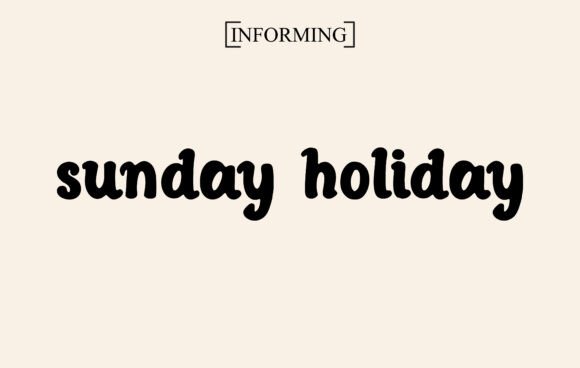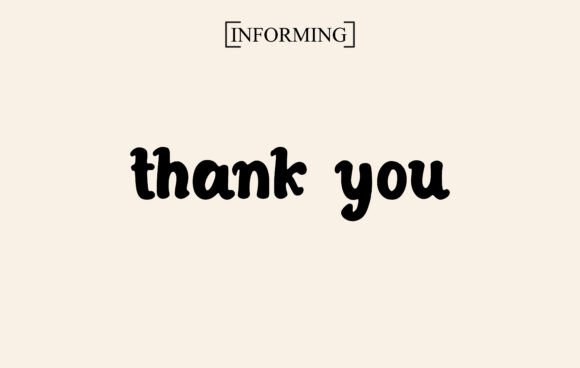
Discover the Elegance of Grace Notes Font: Elevate Your Designs with Sophistication
In the world of typography, a font can make or break a design. It’s the foundation upon which creativity is built, and when it comes to making a statement, the right font can elevate your project from ordinary to extraordinary. This is where the Grace Notes Font comes into play—a versatile and elegant typeface designed to bring your creative ideas to life. Whether you’re a seasoned designer or a crafty DIY enthusiast, Grace Notes Font is poised to become your go-to choice for a wide array of projects.
What Makes Grace Notes Font Stand Out?
At its core, the Grace Notes Font is crafted to be more than just a typeface—it’s an experience. Its design focuses on legibility and aesthetic appeal, making it an ideal choice for both body text and headlines. The font’s creators have poured their expertise into ensuring that Grace Notes not only catches the eye but also conveys your message with clarity and style.
One of the key features of the Grace Notes Font is its incredible versatility. This font isn’t limited to a specific use case; rather, it’s designed to adapt and shine across various mediums and projects. Here are some of the areas where Grace Notes Font truly excels:
- Magazine Headlines: Add a touch of elegance and sophistication to your magazine’s cover pages or feature articles.
- T-Shirts and Merchandise: Create eye-catching and memorable apparel and merchandise that stands out.
- Social Media Graphics: Elevate your social media presence with stylish and engaging graphics.
- Branding and Logos: Use Grace Notes Font to create a lasting impression with a sophisticated and professional brand identity.
- Wedding Invitations and Cards: Add a touch of class and romance to your wedding invitations, greeting cards, and more.
Why Choose Grace Notes Font?
With so many fonts available, why should Grace Notes Font be your top pick? The answer lies in its unique blend of style, legibility, and adaptability. Here are a few compelling reasons:
- Legibility: Despite its elegant and sophisticated look, Grace Notes Font remains highly legible, making it suitable for both headings and body text.
- Aesthetic Appeal: Its stylish and modern design ensures that your projects stand out and make a lasting impression.
- Wide Range of Applications: From digital platforms to print materials, Grace Notes Font adapts seamlessly across different mediums.
Tips for Using Grace Notes Font
To make the most out of Grace Notes Font, consider the following tips:
- Experiment with Sizes: While Grace Notes Font looks great in larger sizes for headlines, don’t hesitate to experiment with smaller sizes for body text.
- Play with Colors: The font’s design allows it to pair well with a variety of colors. Try different color schemes to find the perfect match for your project.
- Combine with Other Fonts: For added visual interest, consider pairing Grace Notes Font with complementary fonts. The key is to maintain harmony and balance.
Grace Notes Font is more than just a typeface; it’s a tool for creativity and expression. Its elegant design, versatility, and legibility make it an excellent choice for designers and crafters looking to elevate their projects. Whether you’re working on a professional design or a personal craft project, Grace Notes Font has the potential to take your creative ideas to the highest level. So, why wait? Explore the possibilities with Grace Notes Font today and discover a world of typographic elegance at your fingertips.